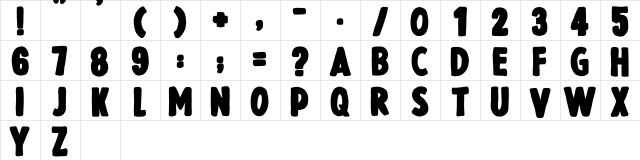
Presque Normal Regular Font Preview
Presque Normal Regular
Presque Normal Regular Font Details
| Designer | imagex |
Design Context for Presque Normal Typeface
Presque Normal offers clean, dependable letterforms without strong stylistic allegiance, making it a practical choice for designers who need flexibility.